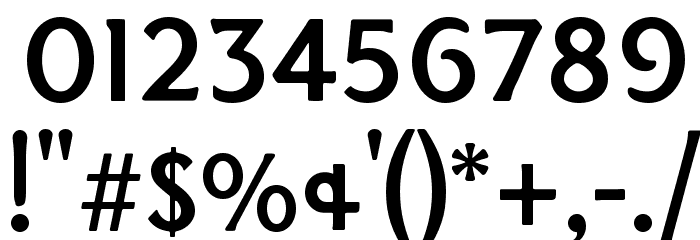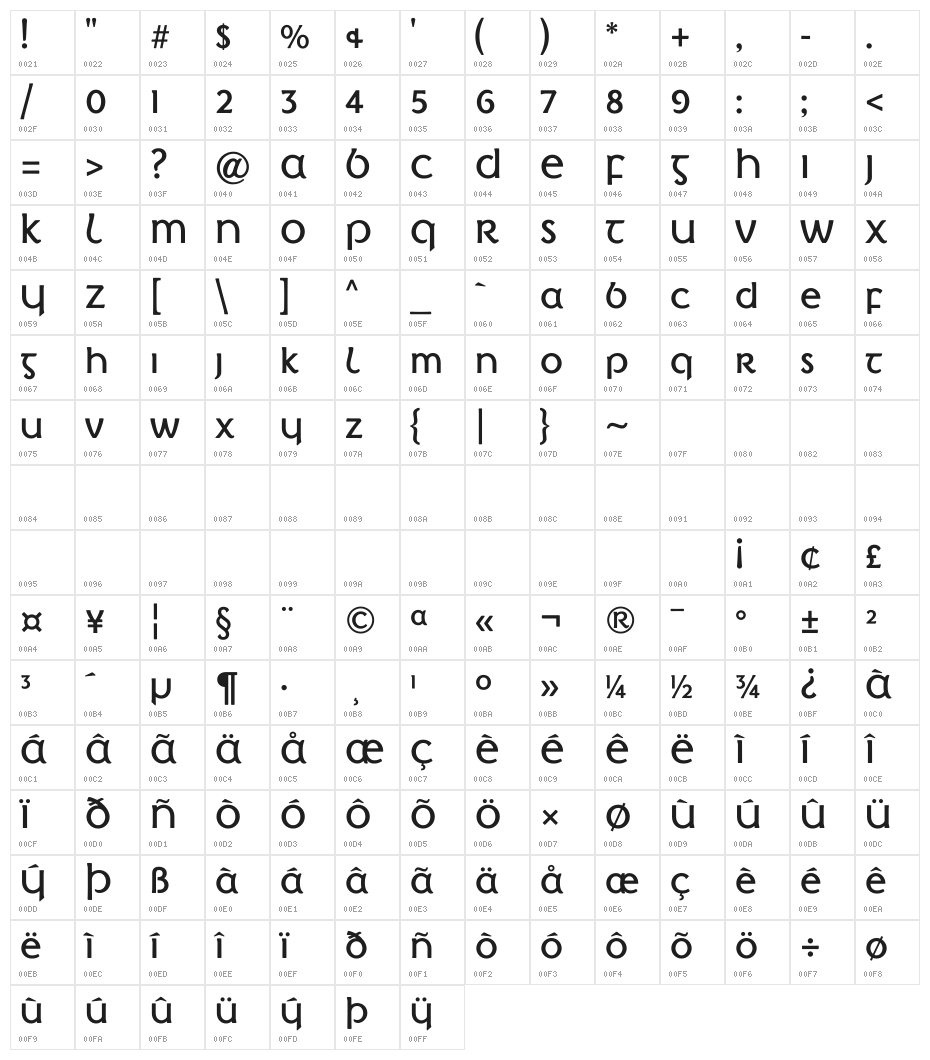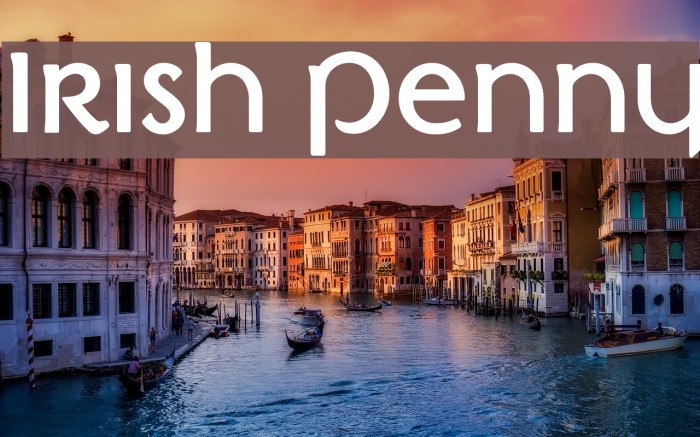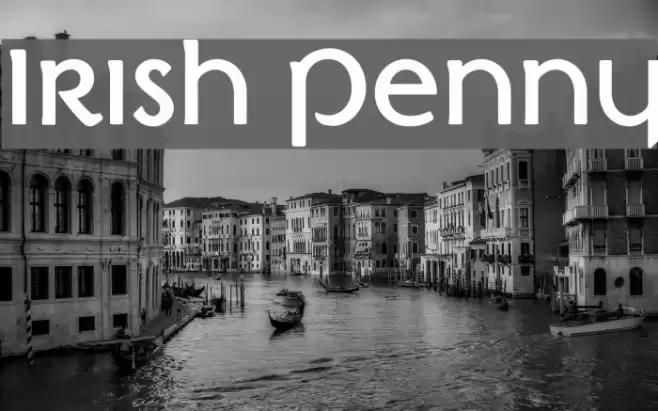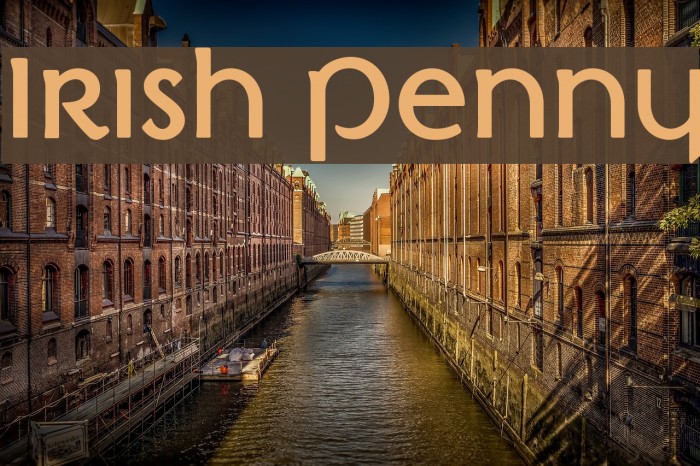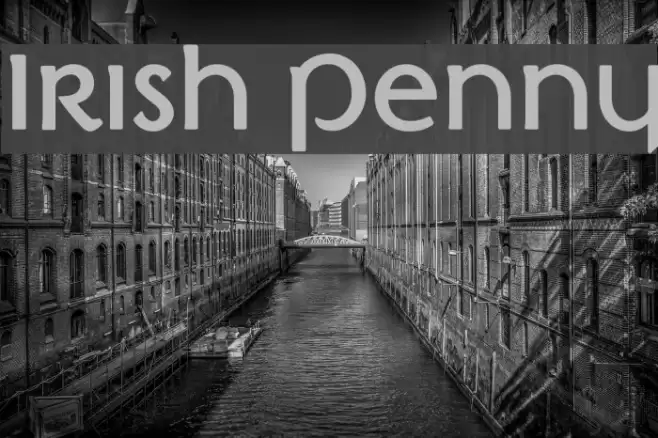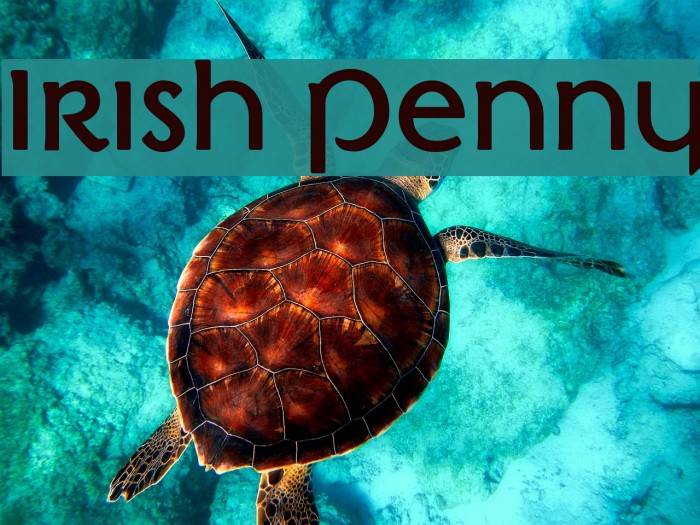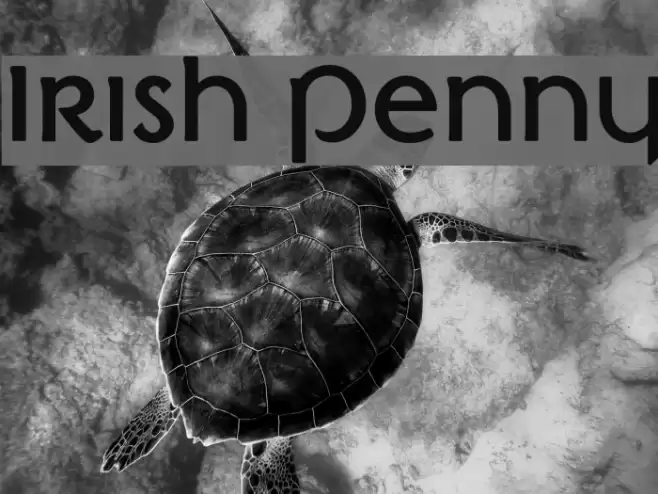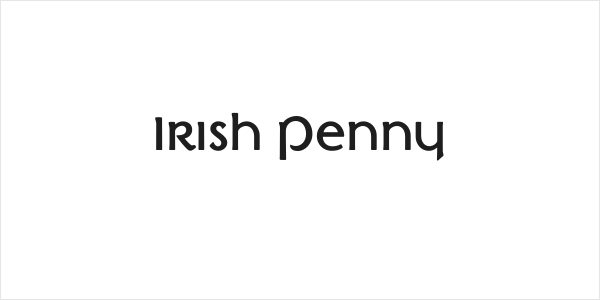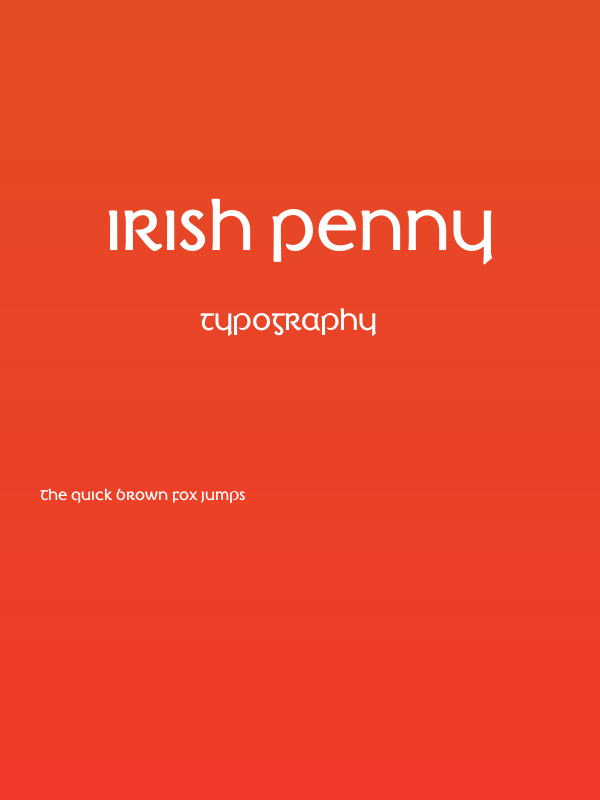
Irish Penny Font
Irish Penny Description
This font features a playful and whimsical style, characterized by its rounded and slightly irregular letterforms. The strokes are smooth and consistent, with a moderate thickness that gives it a friendly and approachable appearance. The lowercase letters have a unique charm, with some characters displaying subtle curves and flourishes that add to the font's personality. The numerals are bold and clear, ensuring readability, while the special characters maintain the same playful aesthetic. Overall, this font exudes a sense of fun and creativity, making it suitable for a variety of design projects.